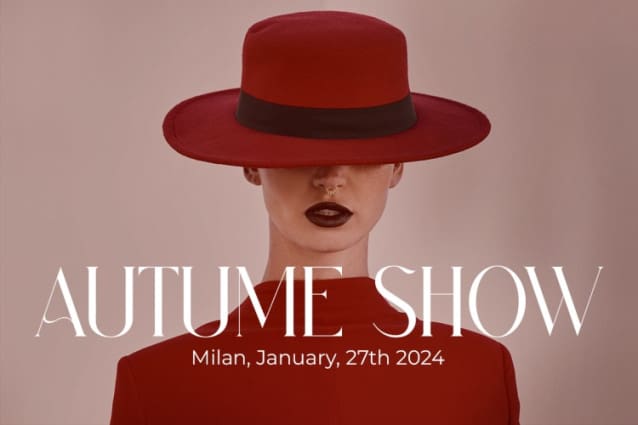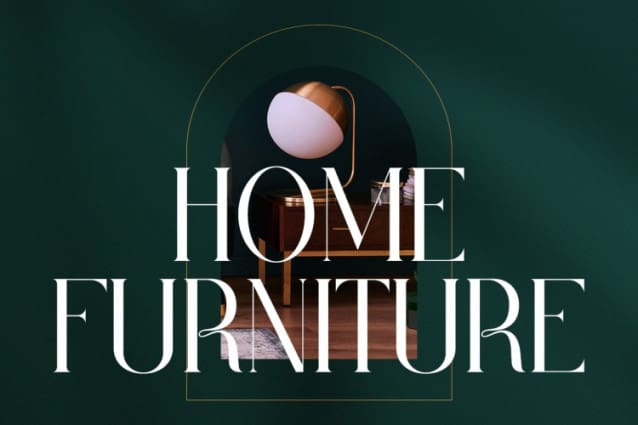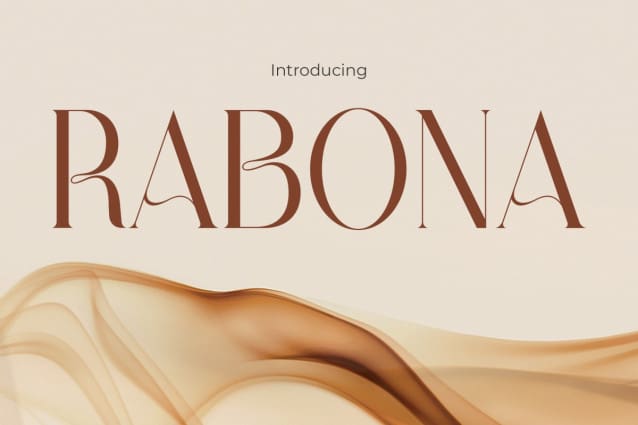
Rabona Font
Rabona Font exudes an irresistible blend of sophistication, contemporary fashionability, and feminine charm with a relaxed undertone, tailored perfectly for brands seeking a seamless fusion of elegance and approachability. With its graceful contours and captivating intricacies, Rabona Font effortlessly elevates every facet of brand identity, be it high-end fashion labels, lifestyle blogs, or trendy bistros, infusing each design with an effortless chic that leaves a lasting impression.
Crafted to embody the essence of modern femininity, Rabona Font strikes a delicate balance between casual chic and timeless refinement. Its chic, stylish aesthetic injects a breath of fresh air into brand communications, ensuring that every message, whether conveyed through product packaging, social media platforms, or website designs, resonates with contemporary allure. Rabona Font offers brands a versatile typographic toolset that speaks volumes in sophistication, captivating the hearts of discerning audiences with its distinctive blend of style and elegance.